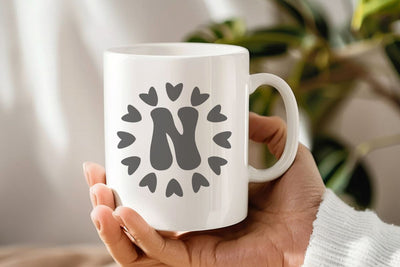
Valentines Monogram
Valentines Monogram is a decorative monogram font with a retro and groovy vibe that captivates the heart. Designed with charming heart-shaped details, this font radiates a cheerful and happy mood. Perfect for branding, crafting, social media content, and kids' projects, it offers uppercase and lowercase letters in both OTF and TTF formats for maximum versatility. Valentines Monogram is the ideal choice for crafters, designers, and small business owners looking to add a sweet and loving touch to their creative works.